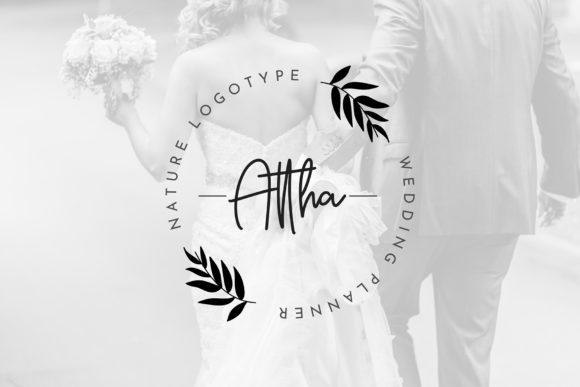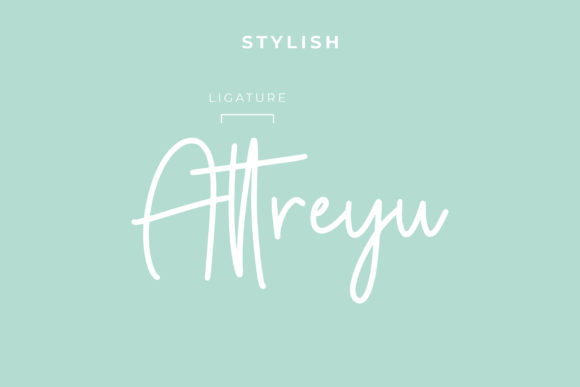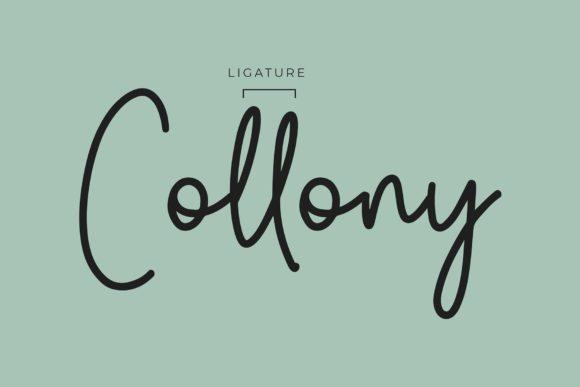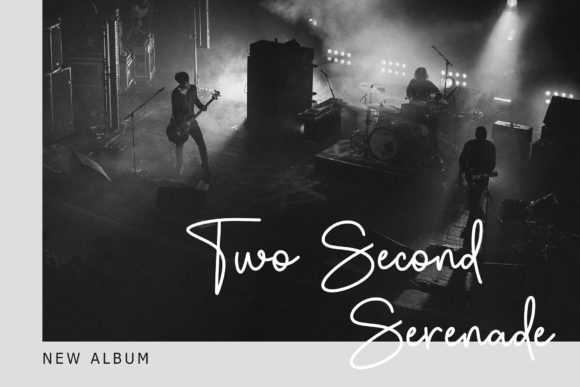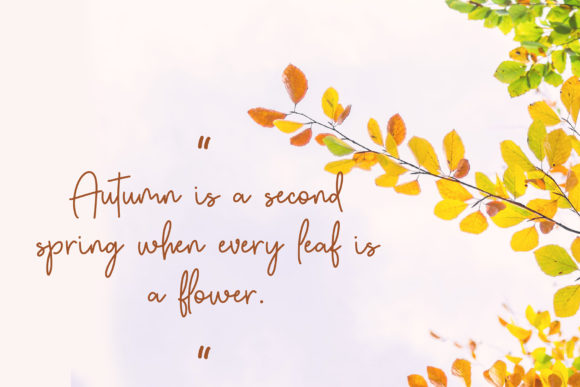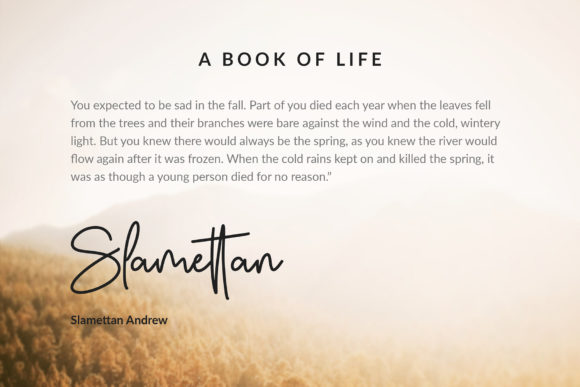
Introducing Autumn Fairy Font: Elevate Your Designs with Elegance
Are you on the hunt for a font that embodies the perfect blend of classic sophistication and modern flair? Look no further than the Autumn Fairy Font. This exquisite handwritten font is meticulously crafted to capture the essence of elegance, making it an instant favorite among designers and crafters alike. With its deep roots in calligraphic traditions and a fresh, contemporary twist, Autumn Fairy is poised to revolutionize your design projects.
The Essence of Autumn Fairy Font
Autumn Fairy Font is not just any ordinary font; it’s a masterpiece that brings a touch of magic to your designs. Its classy calligraphic influences are evident in its fluid strokes and elegant letterforms, which exude a sense of luxury and refinement. Yet, it feels remarkably contemporary, ensuring that your projects stand out with a modern edge. Whether you’re working on a branding campaign, crafting beautiful wedding invitations, or designing captivating packaging, Autumn Fairy Font is the perfect companion to help you achieve your creative vision.
Why Fall in Love with Autumn Fairy Font?
So, what makes Autumn Fairy Font so special? Here are a few reasons why it’s bound to become your go-to font:
- Versatility: Autumn Fairy Font is incredibly versatile, making it suitable for a wide range of design projects. From digital applications like website headers and social media graphics to print materials such as brochures, posters, and business cards, this font adapts seamlessly.
- Elegance: Its calligraphic roots lend an air of sophistication and elegance to any design. Whether you’re aiming for a luxurious feel or a more subtle hint of refinement, Autumn Fairy delivers.
- Readability: Despite its elegant and intricate design, Autumn Fairy Font maintains excellent readability. This makes it an excellent choice for body text as well as headings.
- Uniqueness: In a sea of generic fonts, Autumn Fairy stands out with its unique character. It adds a personal touch to your designs, setting them apart from the crowd.
Bring Your Projects to the Highest Levels
With Autumn Fairy Font, you have the power to elevate your designs to new heights. Here are some ways you can make the most of this beautiful font:
- Branding: Create a lasting impression with logos and brand identities that exude elegance and sophistication.
- Wedding and Event Design: Make your wedding invitations, event posters, and decorations truly unforgettable with a touch of Autumn Fairy’s classy charm.
- Packaging: Stand out on store shelves with product packaging that combines modern appeal with timeless elegance.
- Digital Content: Enhance your website, blog, or social media content with headers and text that capture attention and convey your message in style.
Autumn Fairy Font is more than just a font; it’s a design companion that can transform your projects with its elegance and versatility. Whether you’re a professional designer or a crafting enthusiast, this exquisite handwritten font is sure to inspire and elevate your work. So why wait? Fall in love with Autumn Fairy Font today and bring your designs to the highest levels of creativity and sophistication.